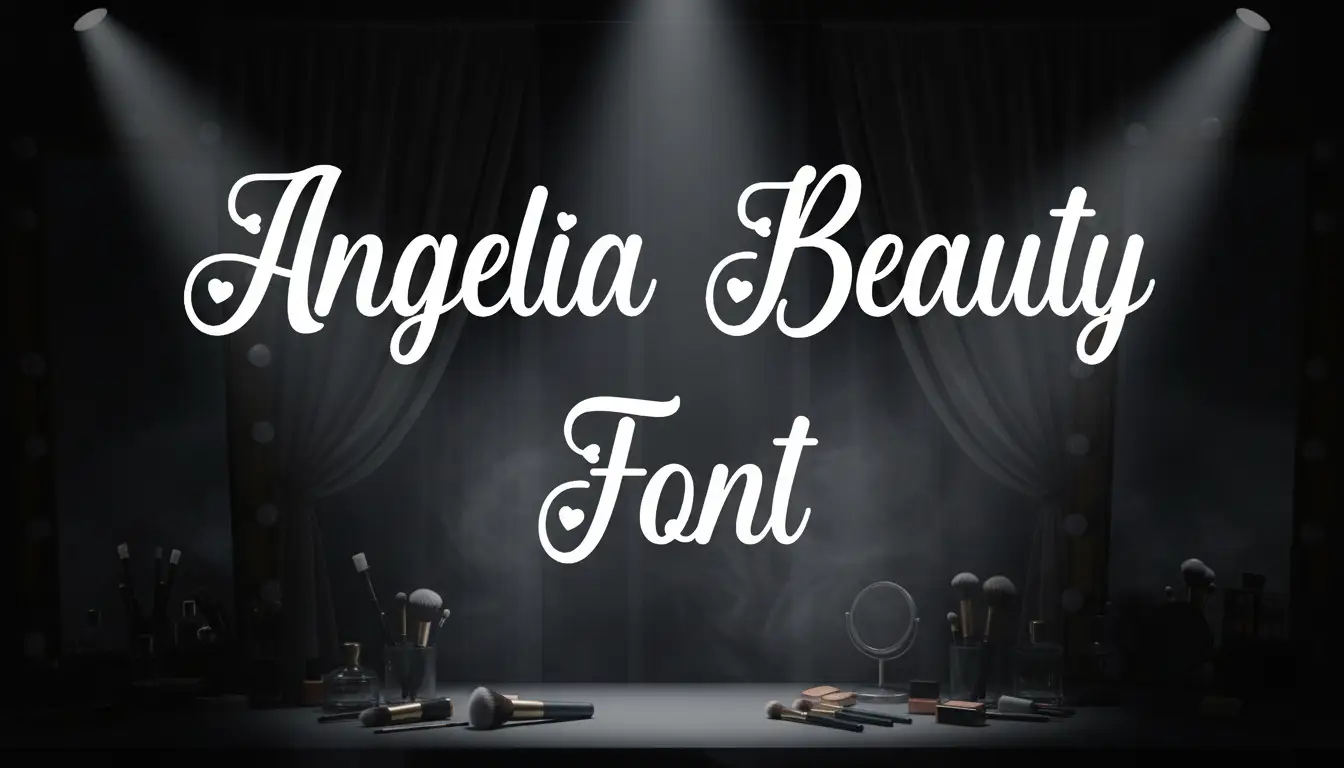
Angelia Beauty Font
Angelia Beauty
Angelia Beauty is a holiday font created by Hamber Perdiansyah. Cheerful and seasonal, it adds a party mood to cards, banners and invites. You can download it for free and test it with your own words in the preview above.
What You Can Type With Angelia Beauty
You get every letter from A to Z in both cases and all the numbers from 0 to 9, which means Angelia Beauty can handle full sentences, dates and prices. Everyday marks like &, !, ? and @ are there too. There are no accented letters like é or ñ, so it's best kept to English text.
Where Angelia Beauty Works Best
Designers usually reach for fonts like Angelia Beauty when they're making seasonal cards, sale banners and party invites. Keep the wording short, like a greeting or a sale headline, and let the font set the mood.
Does Angelia Beauty support accented letters?
No. Angelia Beauty has no accented letters such as é, ñ or ü, so it's best for English text.
What fonts pair well with Angelia Beauty?
A simple serif or sans serif works well for the smaller details.